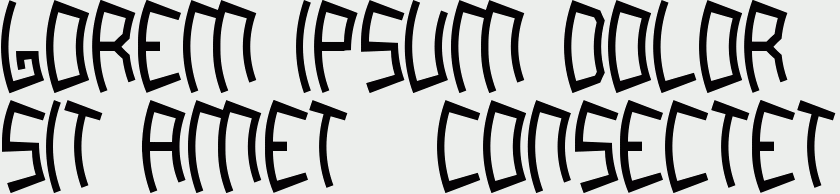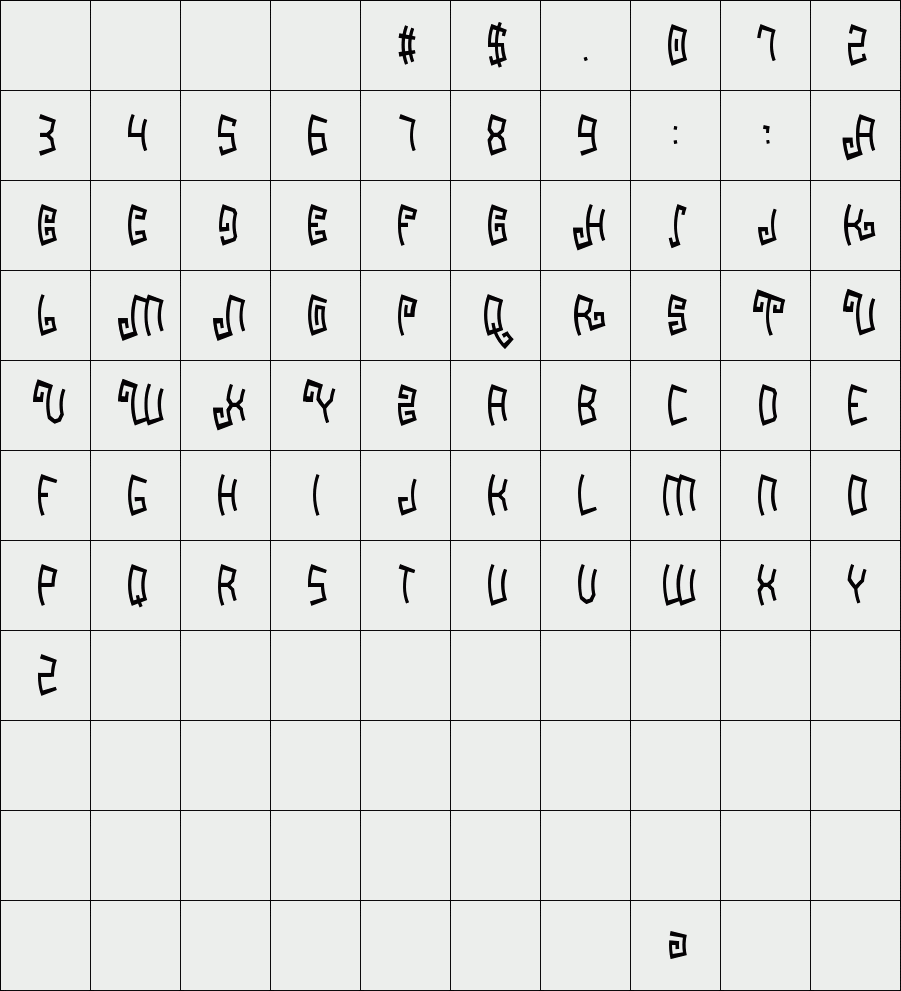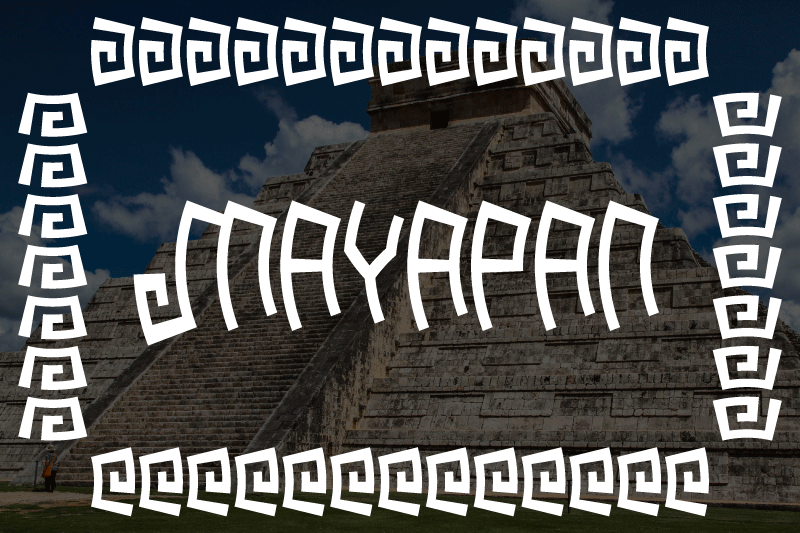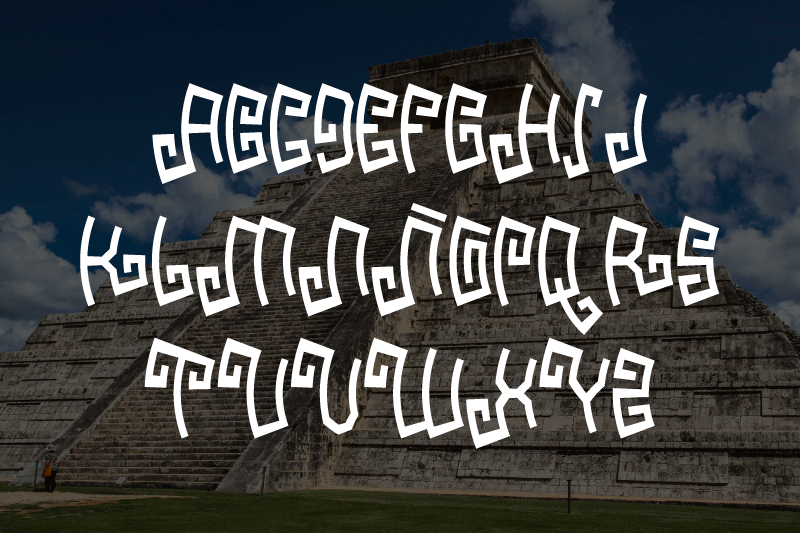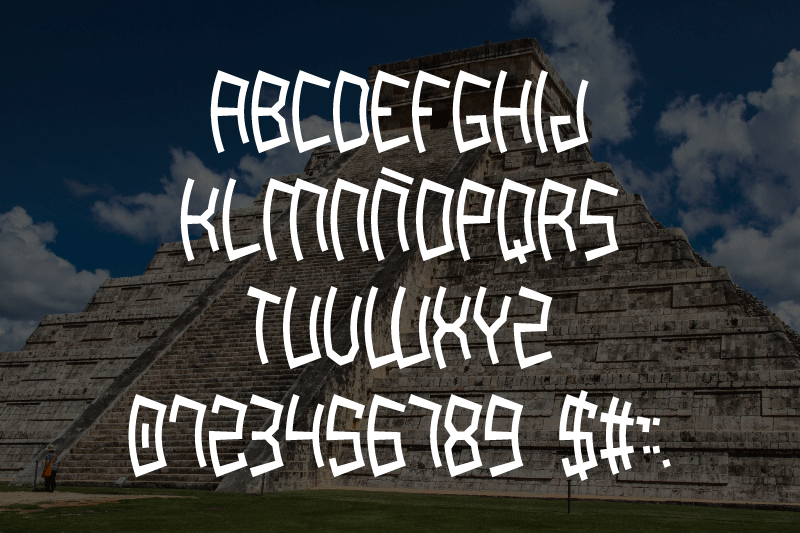
Mayapan
Fountain with a Mexican style and something comic.
Characteristics of the source:
Letter set (A-Z)
Letter set (a-z)
Set of numbers (0-9)
Some symbols